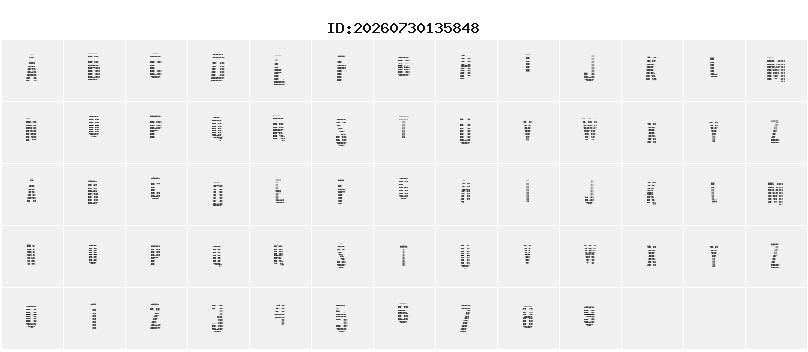
• Font Name: K.P. Duty Textured JL
• Designer: Jeffrey N. Levine
• Manufacturer: Jeff's Fonts & Dingbats
• Description: A non-conforming sans serif, varying in height and stroke width. Based on the title lettering on the Elvis Presley soundtrack album "G.I. Blues"...and textured with the help of Ray Larabie.
About K.P. Duty Textured JL.ttf